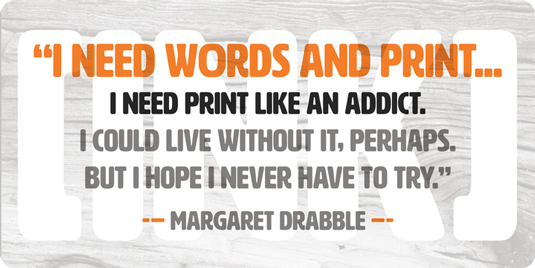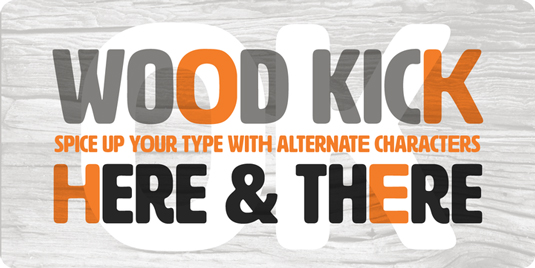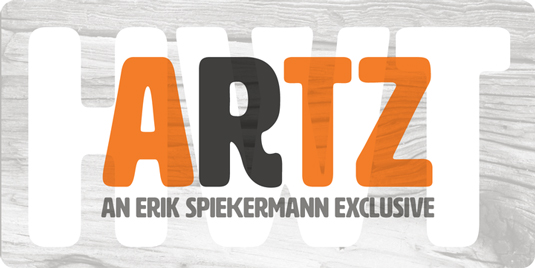
Font of the day: HWT Artz
HWT Artz by Erik Spiekermann
Today's typeface of choice HWT Artz was created by legendary type designer Erik Spiekermann. The newest wood type to be cut at Hamilton Wood Type and Printing Museum, HWT Artz was developed by Spiekermann exclusively for his own print studio (P98a in Berlin), specifically to be cut into large size wood type. The digital version is being offered to the general public with proceeds of sales to benefit the museum’s ongoing operations.
Available from MyFonts, HWT Artz is described as evoking 'bold early 20th century European poster lettering. The design itself is intended to minimize hand-finishing and thus production time with rounded corners rather than sharp interior corners that would normally have to be hand-finished'.